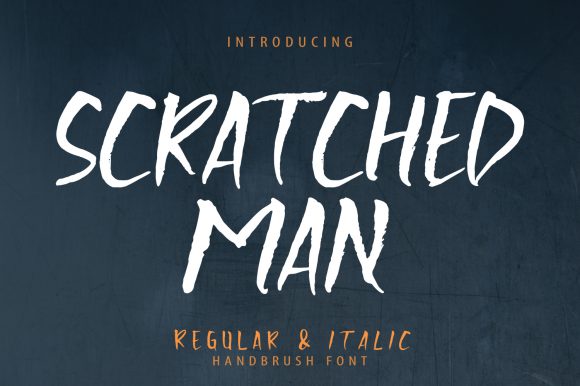
Prepare to be captivated by Scratchedman Font, a remarkable display font that will ignite your creativity and leave an unforgettable mark on your designs. Crafted with meticulous care by the talented designers at OCS Studio, Scratchedman embodies the essence of a "Font For Wanted Poster," exuding an air of intrigue and adventure.
Step into a world where imagination takes flight and visual storytelling reaches new heights. Scratchedman's unique script typeface is a masterpiece of digital artistry, meticulously crafted to evoke the rugged charm of a bygone era. Its bold strokes and playful imperfections create a captivating visual language that transports you to a realm of limitless possibilities.
With Scratchedman Font, you hold the key to unlocking a treasure trove of creative adventures. Its captivating style is ideally suited for a wide range of projects, from eye-catching headlines to captivating social media posts and everything in between. Imagine the impact it will make on your wanted posters, branding materials, and invitations, adding an instant touch of mystery and allure.
But Scratchedman's appeal extends far beyond its aesthetic charm. This extraordinary font possesses a remarkable ability to evoke emotions and ignite imaginations. Its distinctive character adds depth and intrigue to any design, inviting viewers to engage with your message on a deeper level.
So, if you're ready to embark on a creative journey that will leave a lasting impression, look no further than Scratchedman Font. Its boundless versatility and captivating style will empower you to create designs that stand out from the crowd and capture the hearts of your audience. Let Scratchedman be your guide as you explore the uncharted territories of creativity, where imagination reigns supreme.